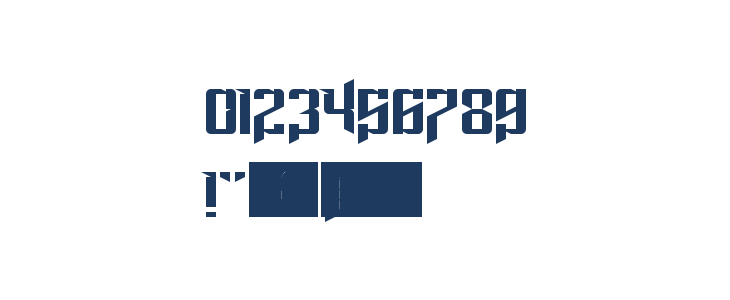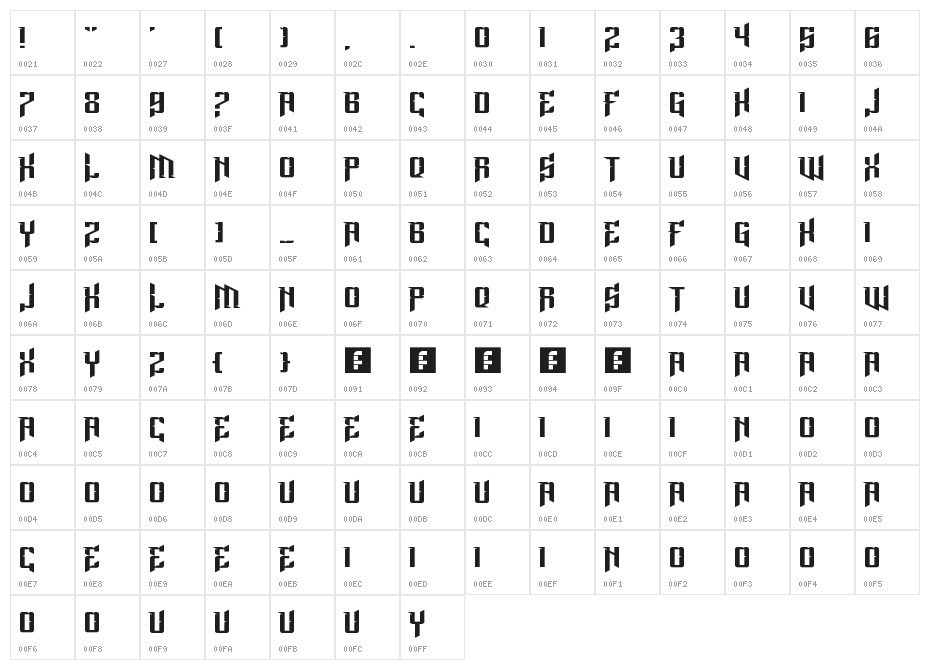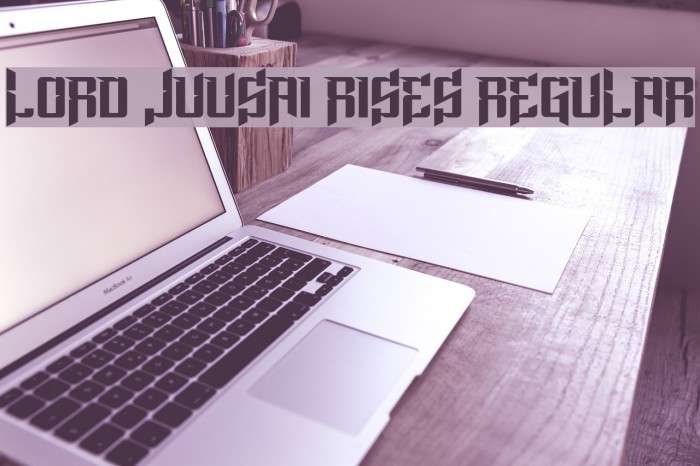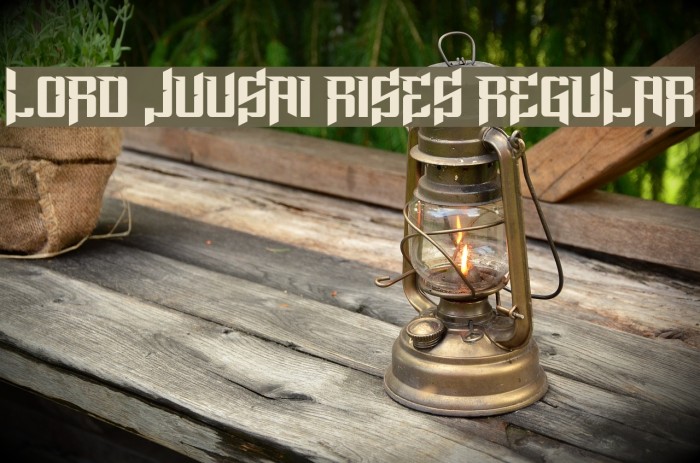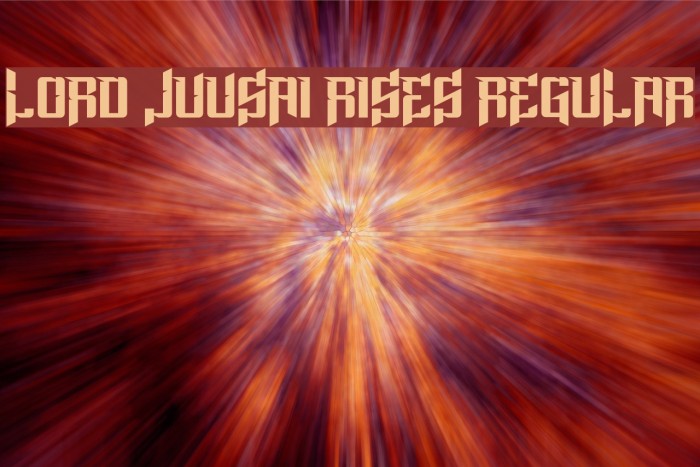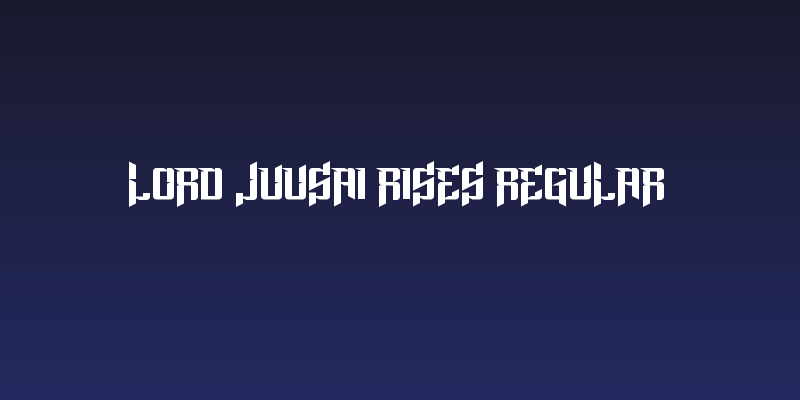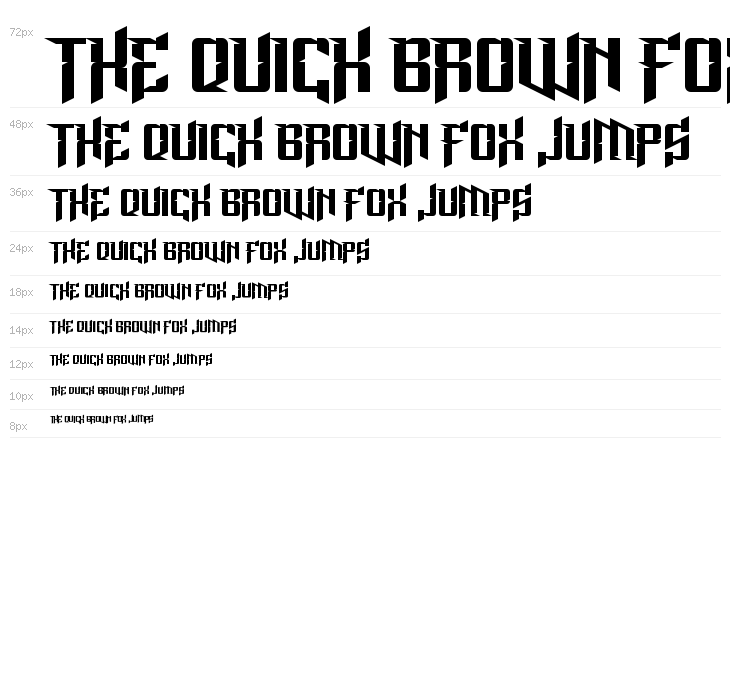
Lord Juusai Rises Regular Font
Lord Juusai Rises Regular Description
This font features a bold and striking design with sharp, angular edges and a geometric structure. The characters are constructed with a consistent thickness, creating a uniform appearance that is both modern and assertive. The uppercase and lowercase letters share a similar style, emphasizing vertical and horizontal lines with minimal curves. The numbers and special characters maintain the same boldness and angularity, ensuring a cohesive look across all glyphs. This font's unique style makes it ideal for projects that require a strong visual impact.